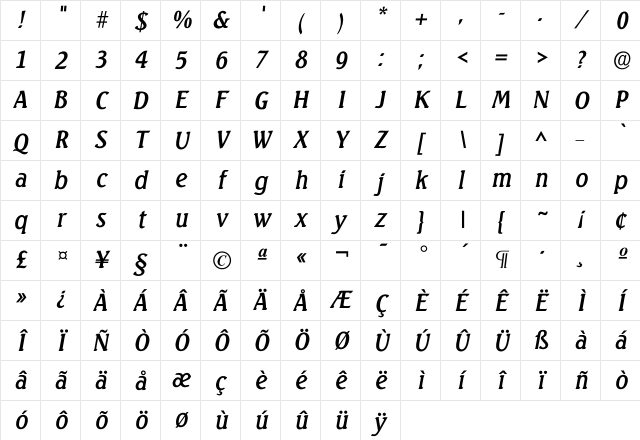
Complete Iseagull Medium glyph index. Displaying only characters natively supported by Iseagull Medium font.
Iseagull is a composed and adaptable typeface that performs quietly and consistently across a wide range of design contexts.